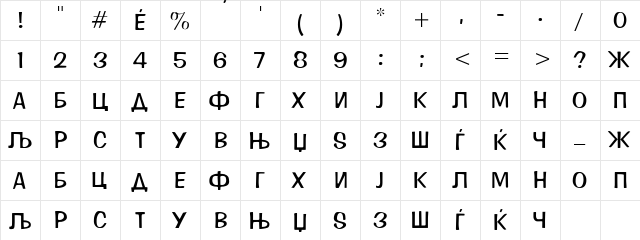
X_Impress Thin
Design Context for X_Impress Typeface
X_Impress offers clean, dependable letterforms without strong stylistic allegiance, making it a practical choice for designers who need flexibility. Its slender proportions lend an understated elegance to any composition.